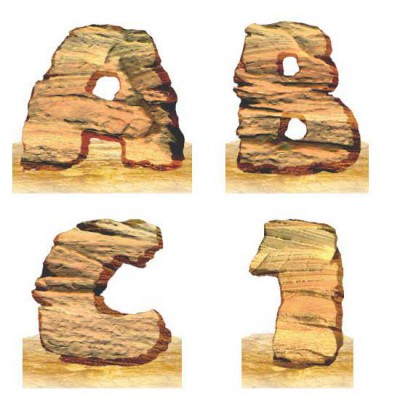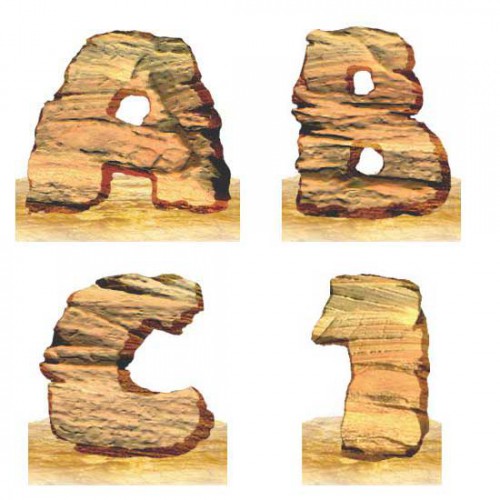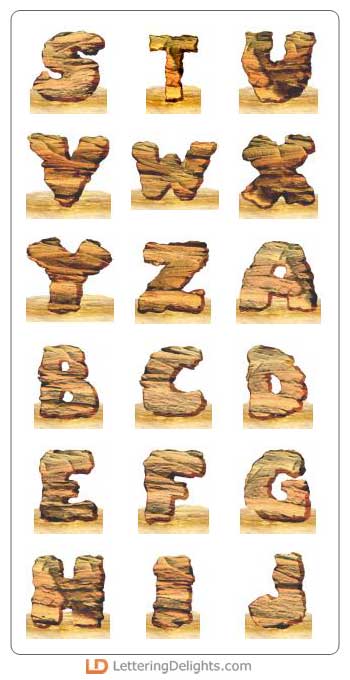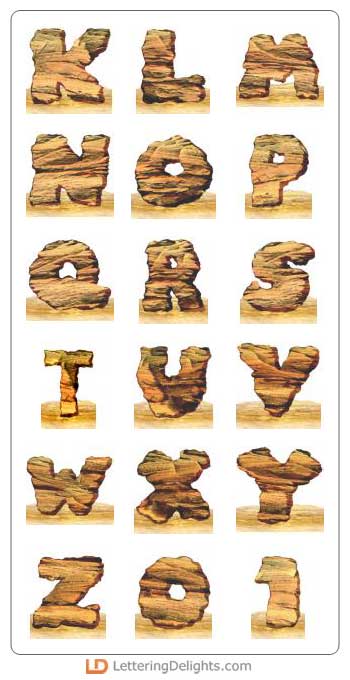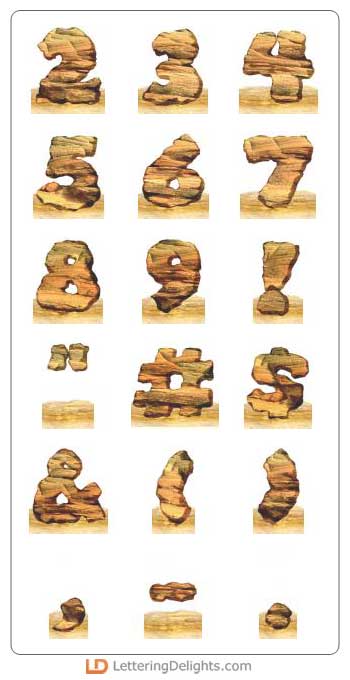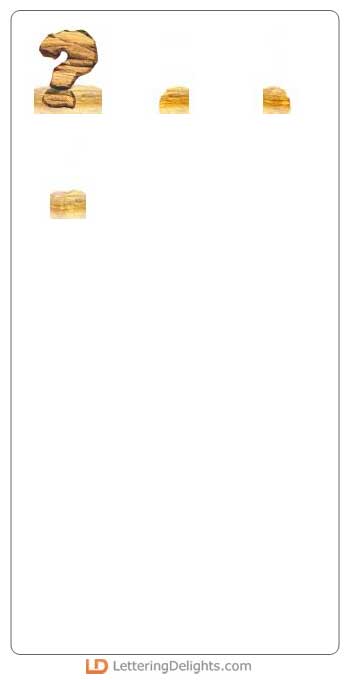
This alphabet is solid as a rock ... well, it is a rock! The letters connect at the bottom and each make a sand or rock letter. It's remiscent of Moab where many such rock arches and formations are found.